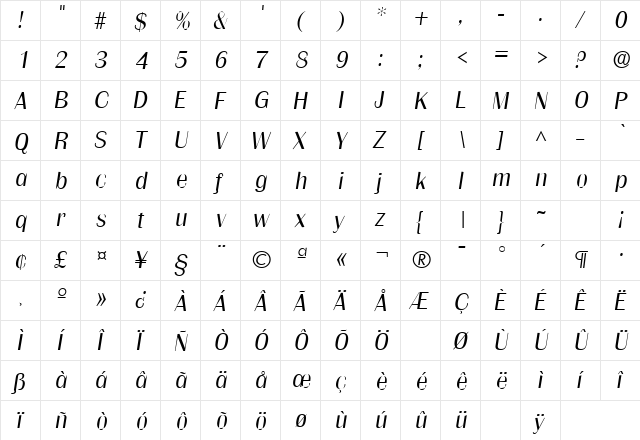
GrenobleLH Italic
Design Context for GrenobleLH Typeface
GrenobleLH offers clean, dependable letterforms without strong stylistic allegiance, making it a practical choice for designers who need flexibility. The dynamic lean of this cut emphasises speed and emphasis in any layout.
Pro Tip: Use GrenobleLH for emphasis, pull quotes, and subheadings where its slanted energy can add rhythm to the layout.